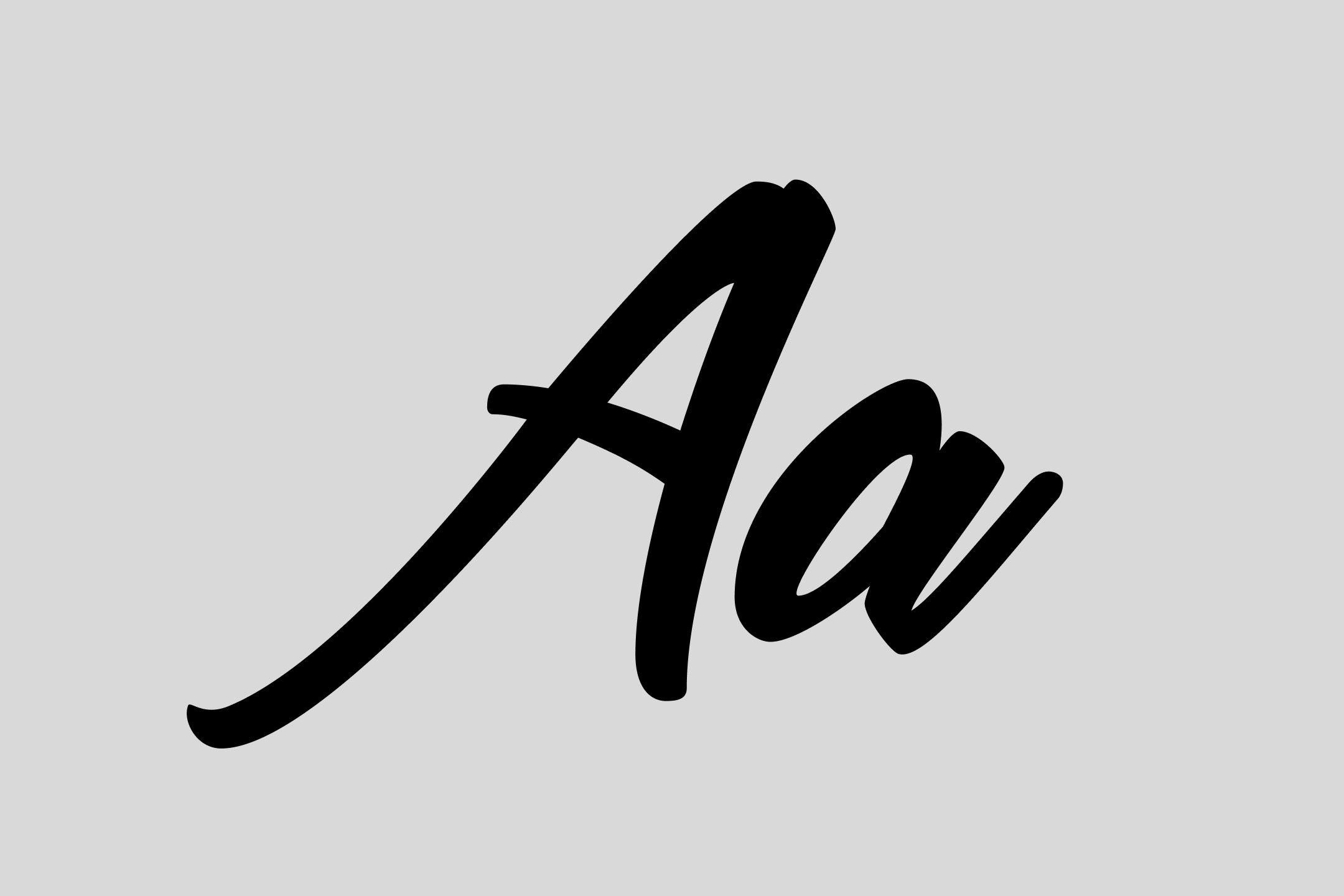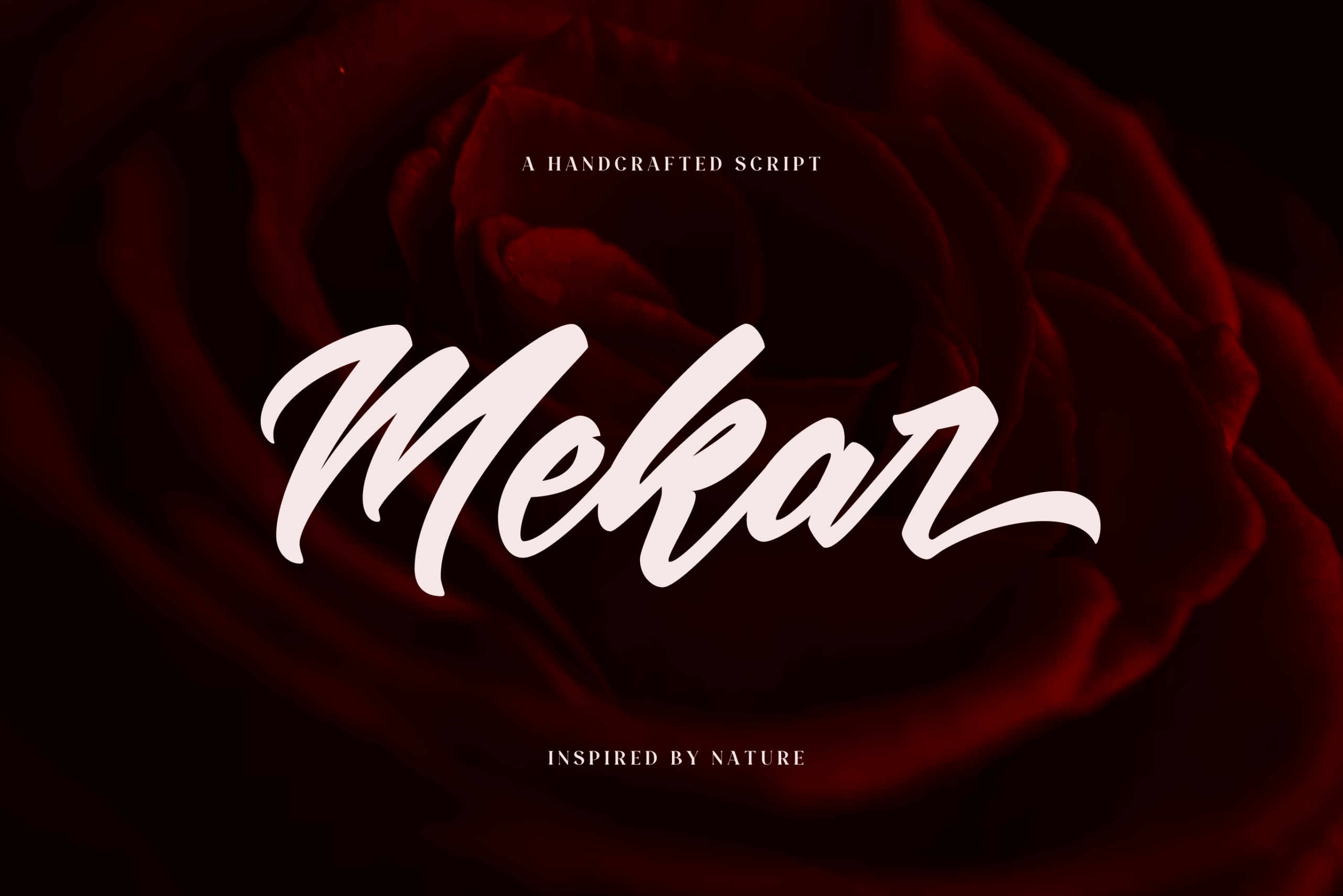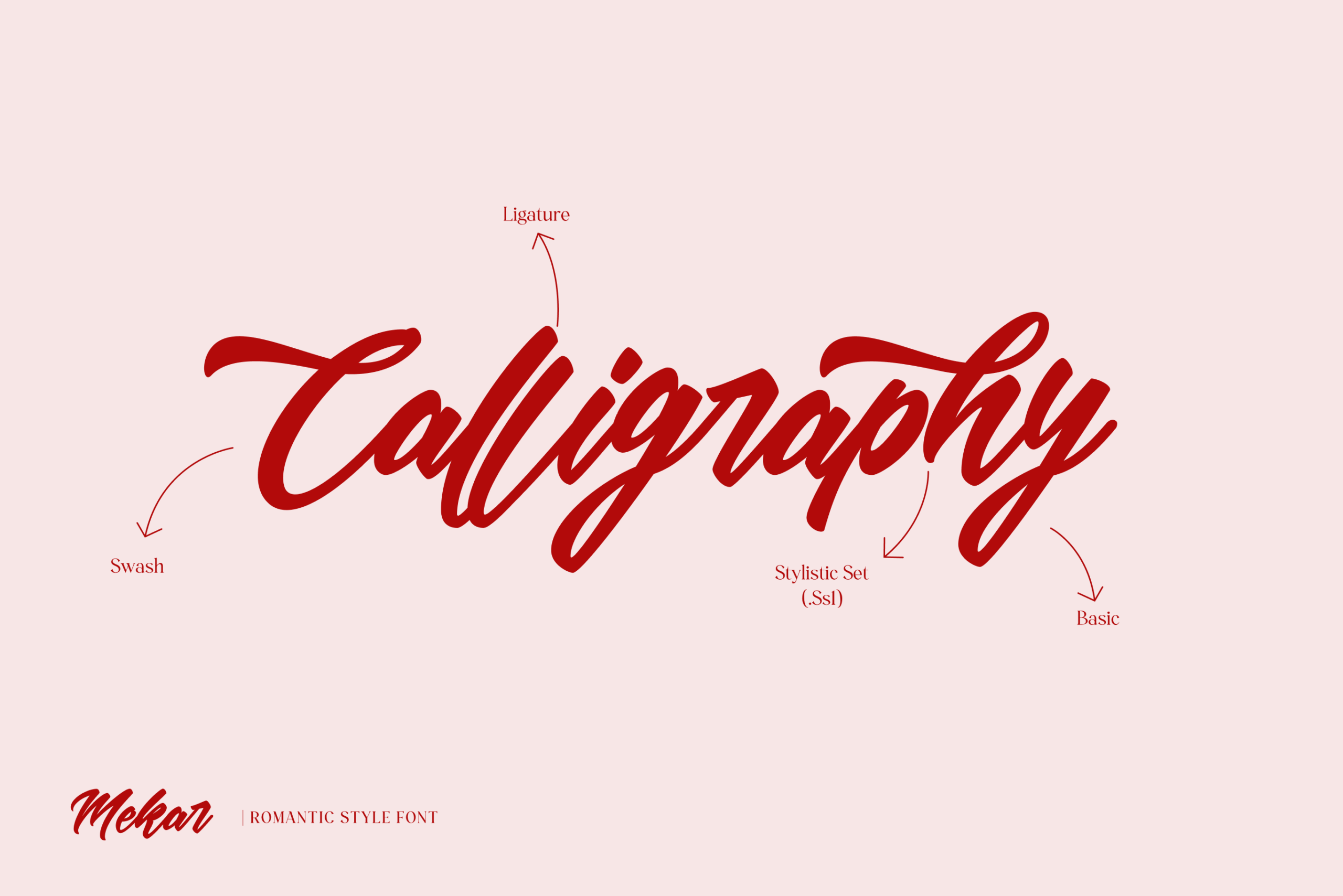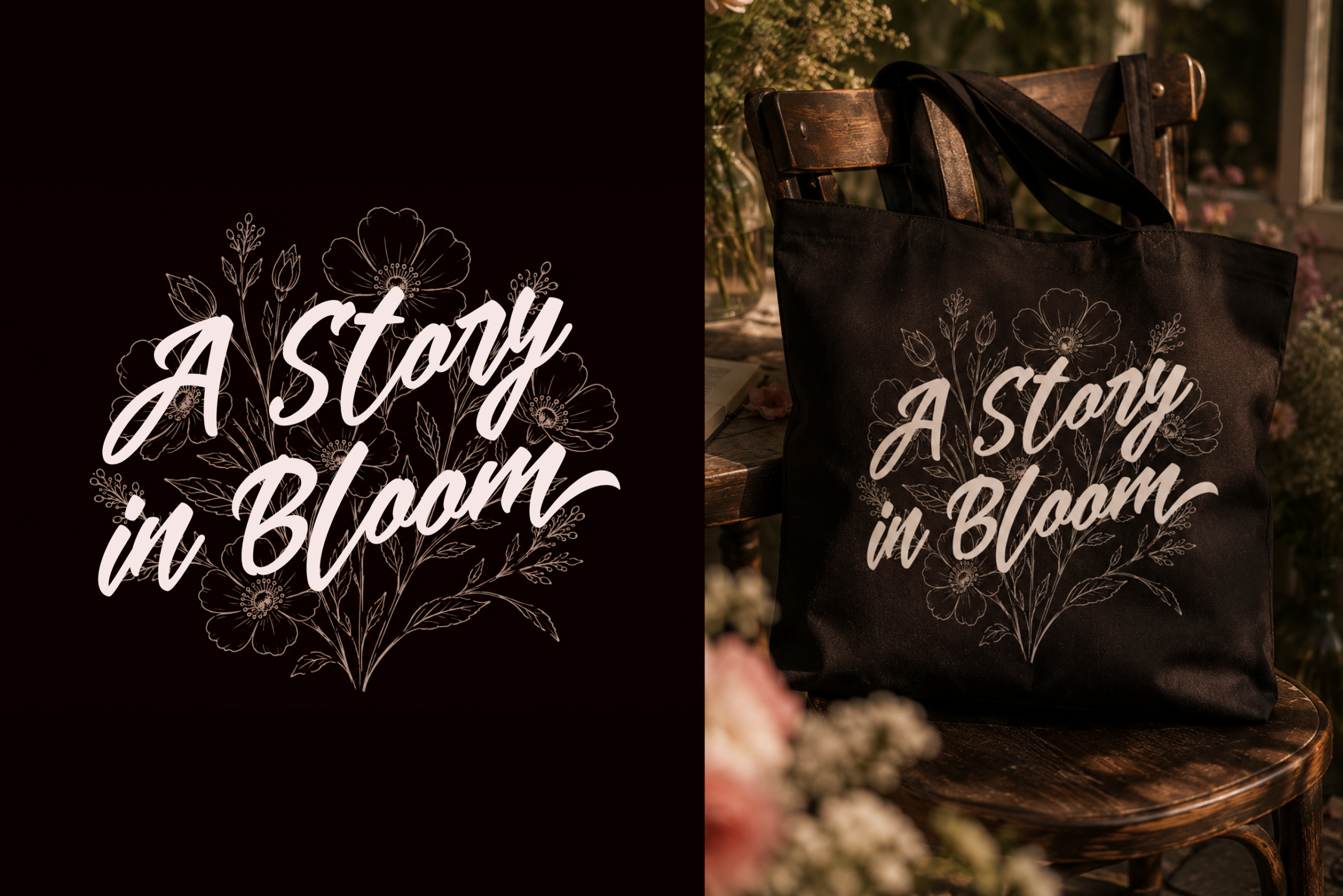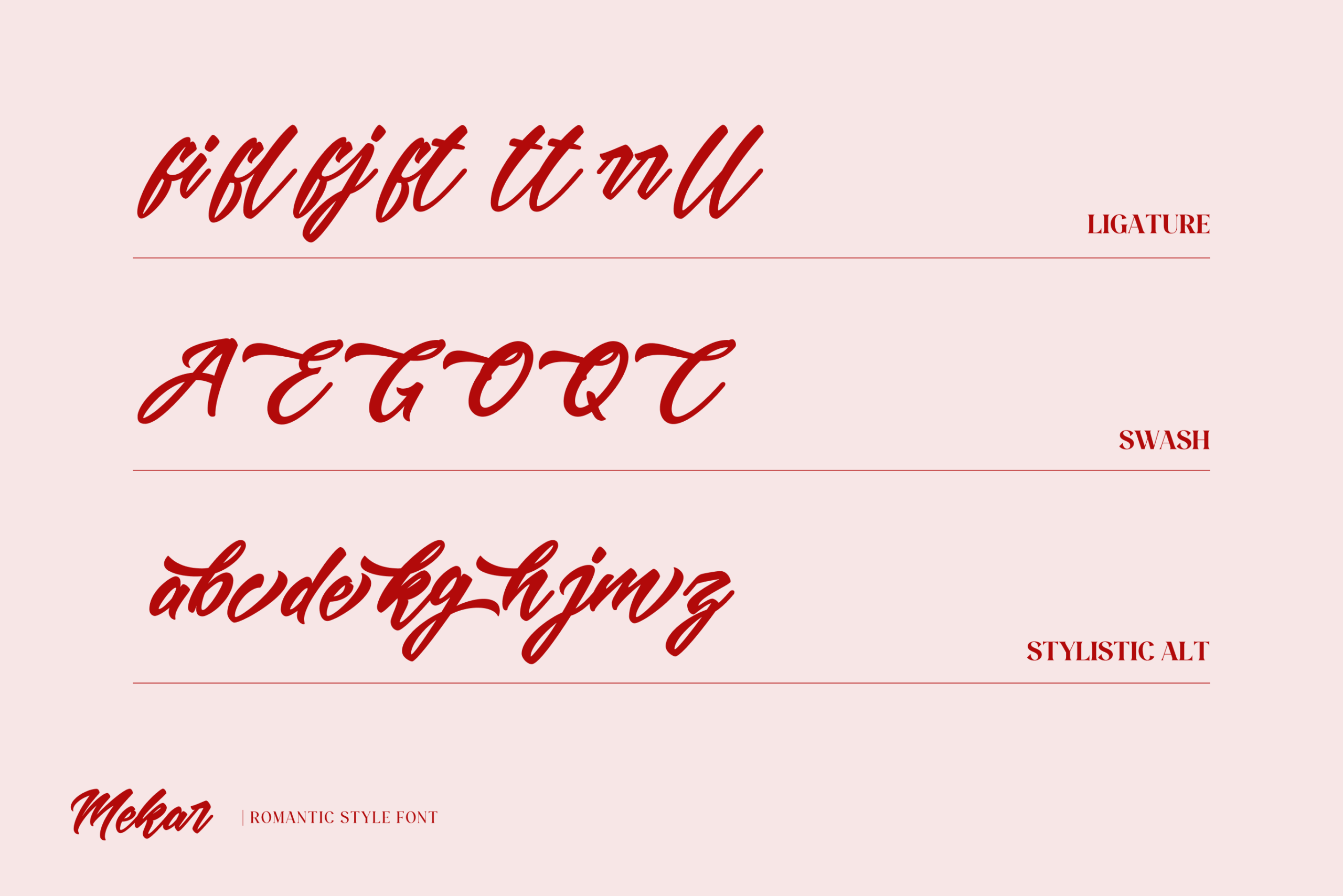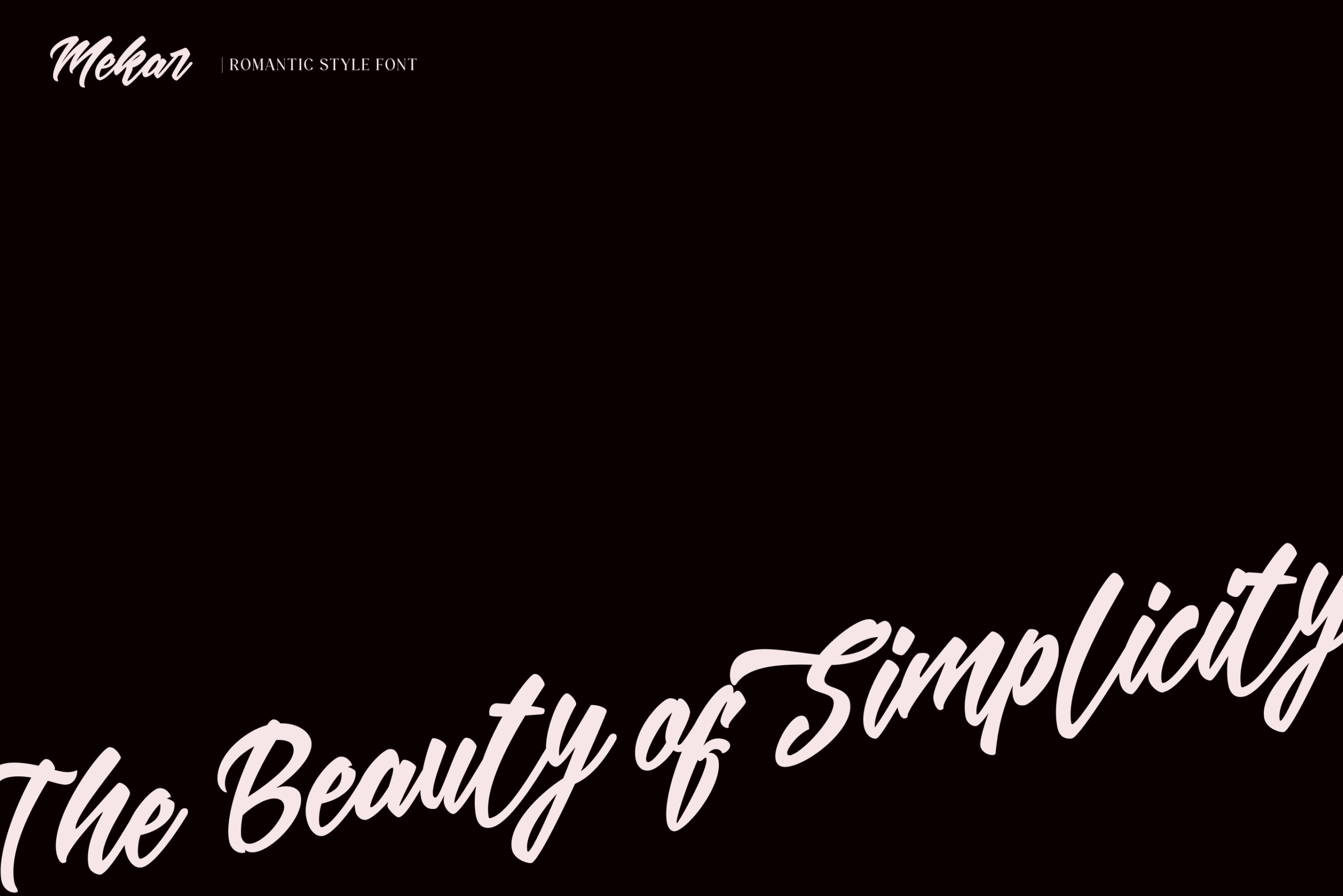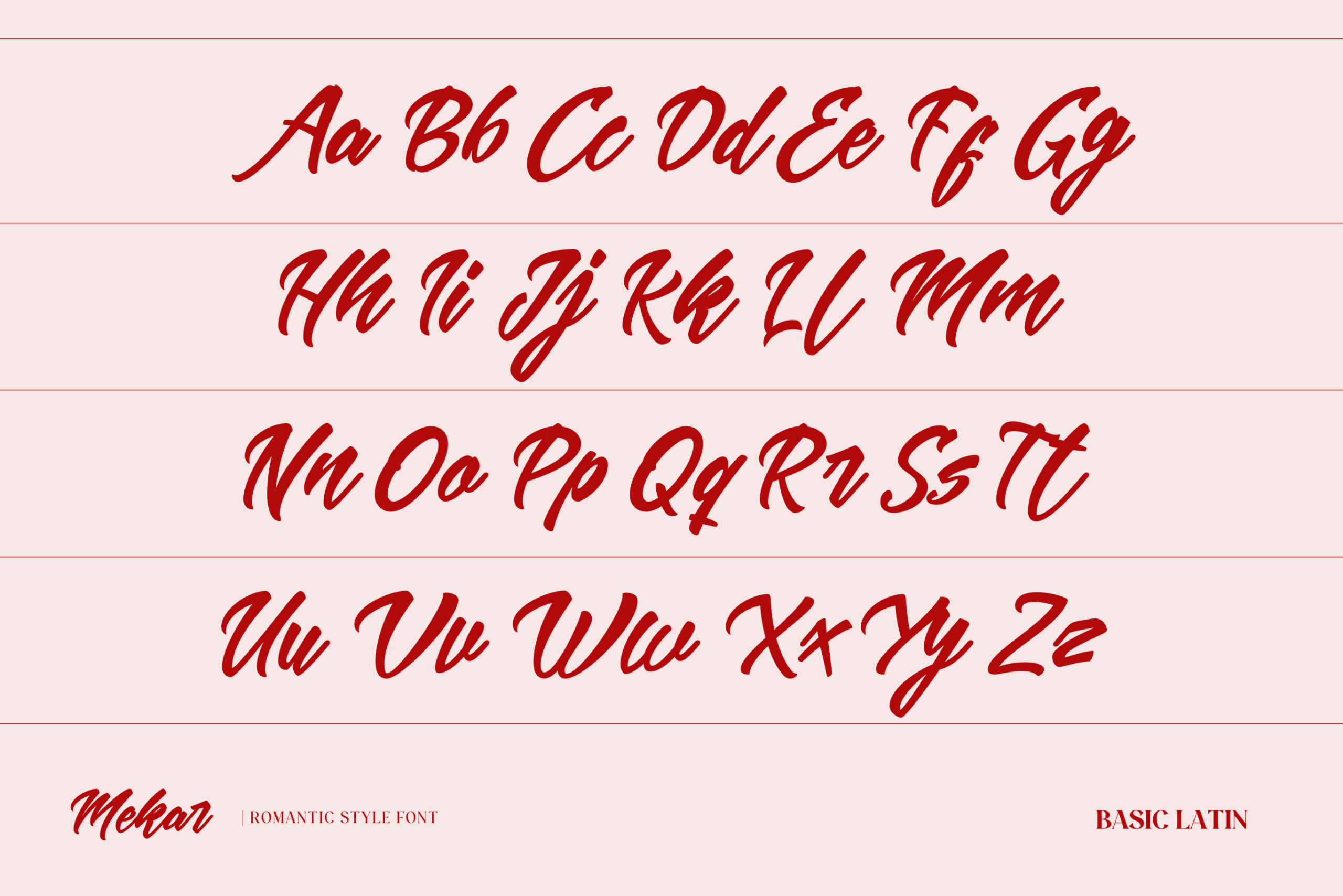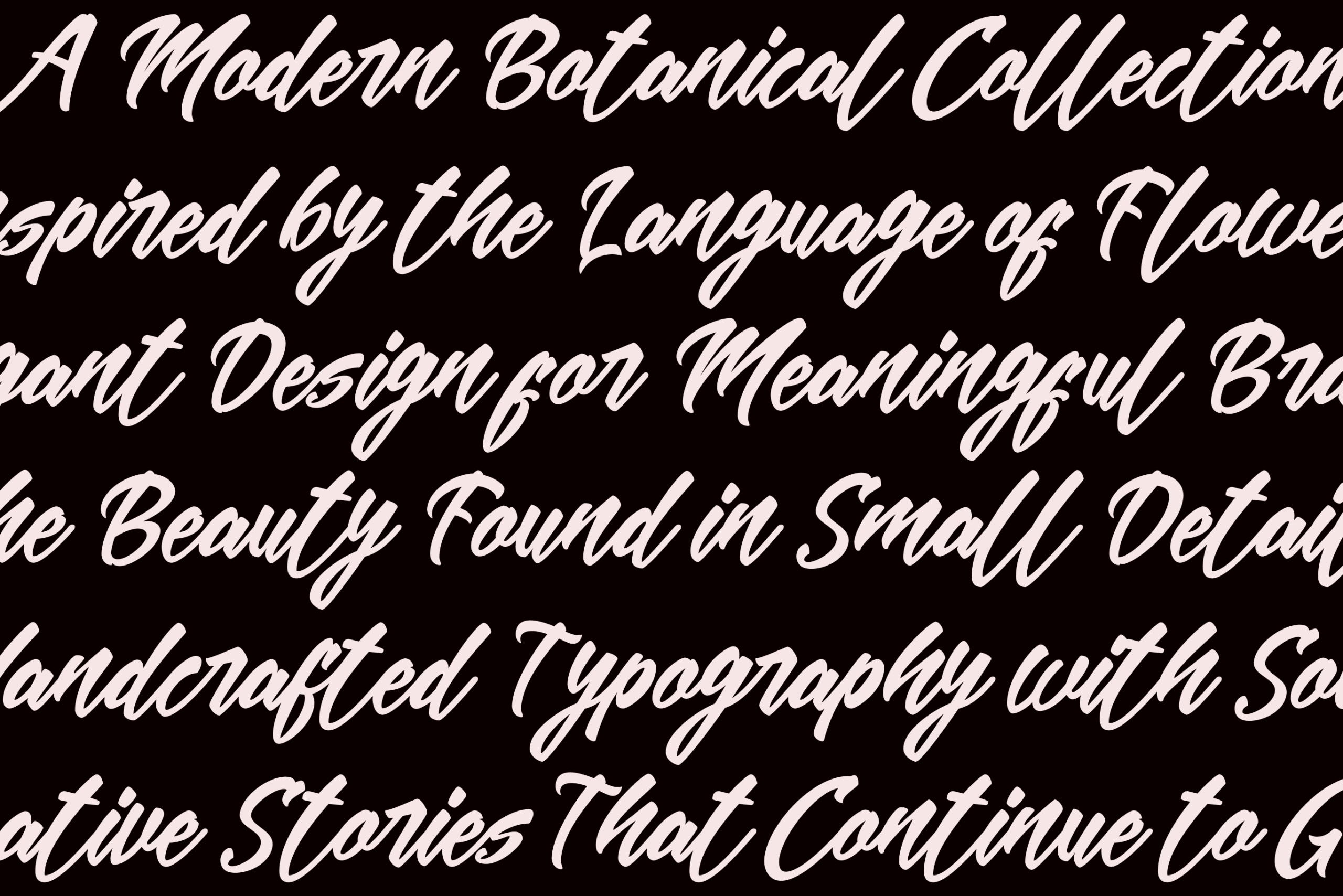
Mekar
Mekar Logotype brings elegant handcrafted charm to every branding project.
Elegant Design for Meaningful Brands
Mekar® is a handcrafted logotype font designed to bring warmth, personality, and authentic character to modern branding projects. Inspired by natural brush lettering and organic signature styles, it combines flowing curves, expressive strokes, and elegant movement to create a distinctive visual identity.
With its artistic rhythm and carefully crafted letterforms, Mekar® is perfect for designers looking to create memorable logos, packaging, and brand experiences that feel both professional and approachable. Its versatile style works beautifully across lifestyle brands, beauty products, fashion labels, cafés, handmade businesses, and creative marketing materials.
Designed with attention to balance and readability, Mekar® delivers a natural handwritten appearance while maintaining a refined and polished finish suitable for both digital and print applications.
Features:
• Handcrafted Logotype Style
• Uppercase & Lowercase
• Numbers & Punctuation
• Multilingual Support
• OpenType Features
• Accented Characters
• Professional Kerning
Mekar® is created for designers, entrepreneurs, and brands seeking a handcrafted signature aesthetic that feels elegant, expressive, and effortlessly memorable.